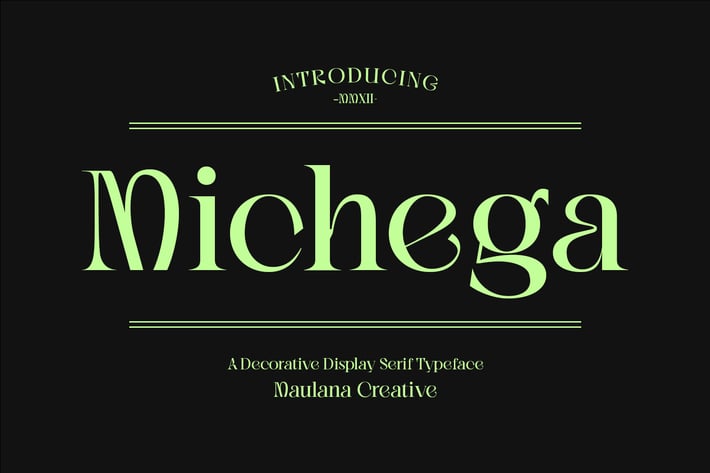
Michega Decorative Serif Typeface
Michega is a decorative and explorative serif font. With high contrast stroke, fun character with a bit of ligatures. To give you an extra creative work. Michega font support multilingual more than 100+ language. This font is good for logo design, Social media, Movie Titles, Books Titles, a short text even a long text letter and good for your secondary text font with sans or script. Make a stunning work with Michega font.